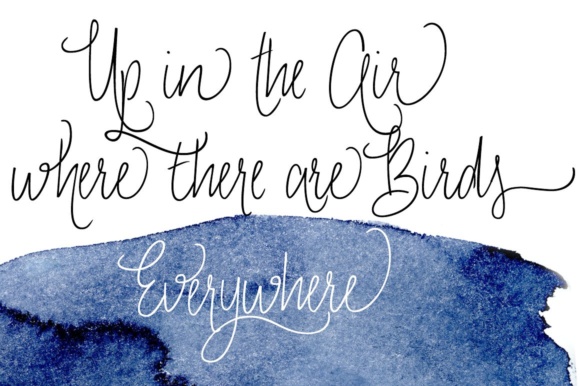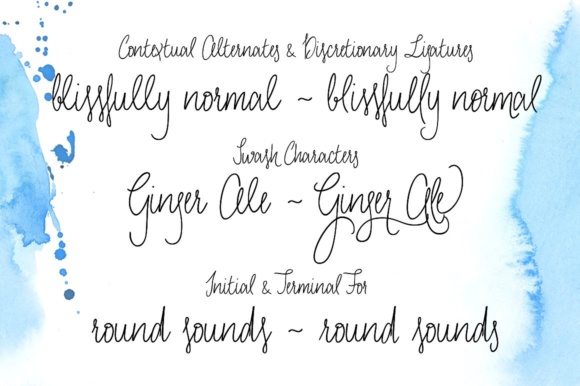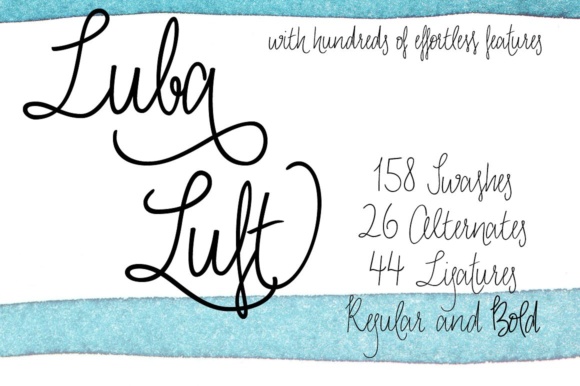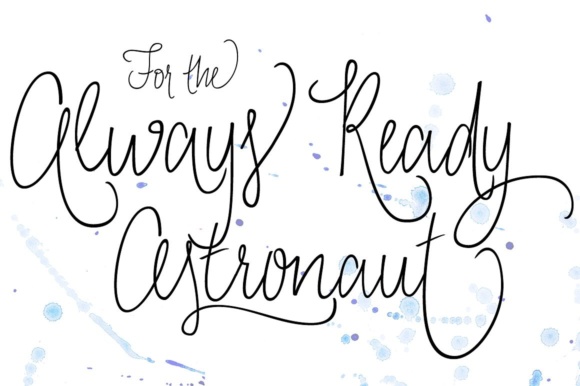
About Luba Luft Font
Luba Luft is a semi-connected script font that has an airy and casual look to it. Smooth letters with upright curves flow effortlessly over the page, the letterforms vary slightly to emphasize the light, flowing characteristics of the typeface. One of the unique features of Luba Luft are these subtle variations, letterforms flowing and curling around each other as if written by hand – contextual alternates.